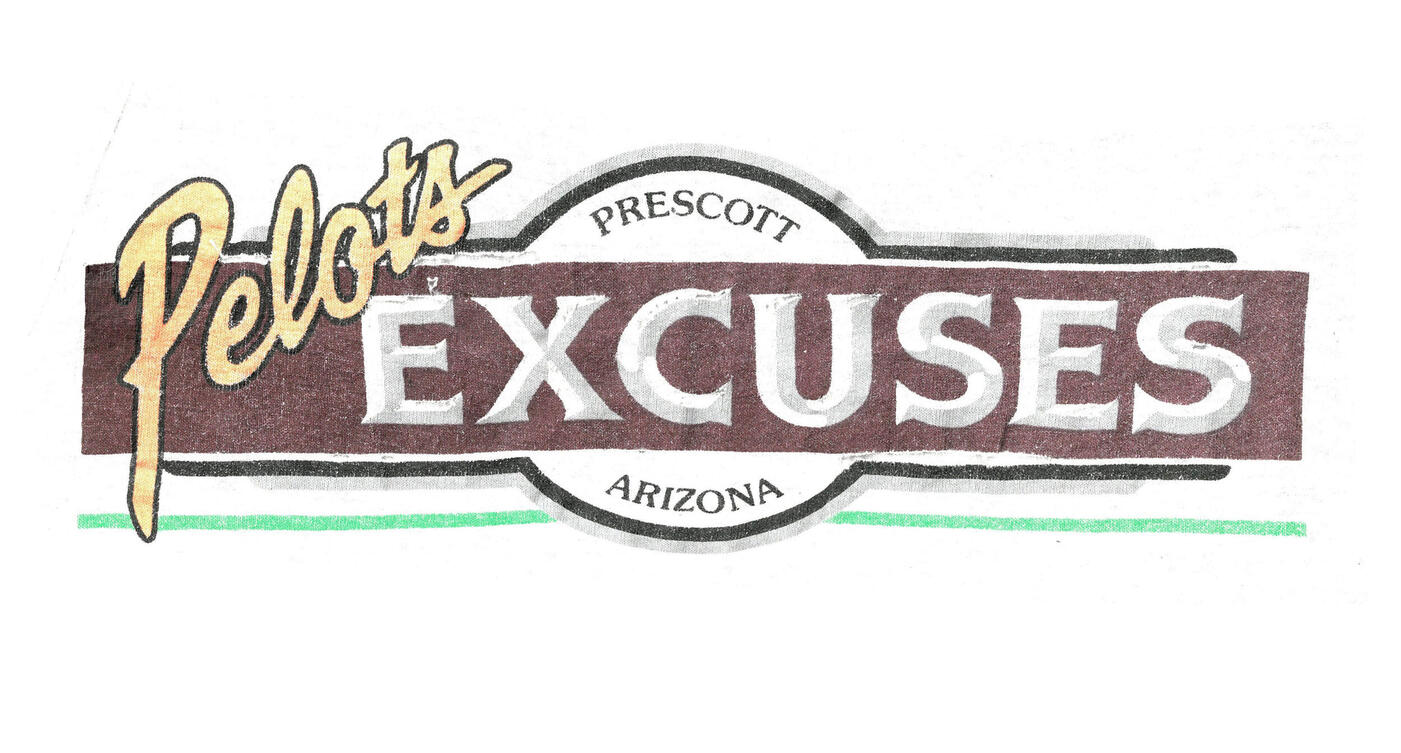
Recreating My Friend's Grandfather's Old Bar Logo
Hi Gurus! My friend's grandfather owned a bar back in the day and all she has is an old t-shirt depicting the identity. She asked if I could recreate the logo for her. Can anyone help me identify the fonts that were used for each element? Thanks so much for any help!
Pelots – ?
EXCUSES – ?
PRESCOTT – ?
PRESCOTT and ARIZONA are Souvenir Medium
EXCUSES could be recreated with a horizontally stretched Flange or LHF Hensler and a bit of additional editing. Serif Gothic Heavy is another option.
Pelots appears to be lettering—still trying to ID a close similar. Filmotype Jupiter has a similar vibe.
It would be helpful to know the year the t-shirt was created, or the years the bar was open.